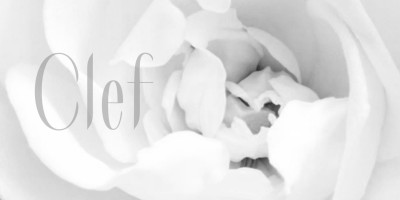
If you’re seeking a refined and stylish typeface that blends classic elegance with a modern twist, Bemore Serif Font Free Download is a perfect choice. This high-contrast serif font brings sophistication and strength to your typography, making it ideal for branding, magazine layouts, editorial design, luxury packaging, and fashion-related visuals.
Bemore Serif features tall, slender letterforms with gracefully flared serifs and sharp transitions between thick and thin strokes. The result is a bold yet elegant look that commands attention while maintaining readability. Its fashionable tone makes it especially well-suited for beauty brands, upscale marketing, and creative professionals looking to elevate their visual identity.
Whether used in large headlines or refined subheadings, Bemore Serif provides versatility and character. It pairs beautifully with minimalist sans-serif fonts for a clean, balanced layout and also holds its own as a striking display font.